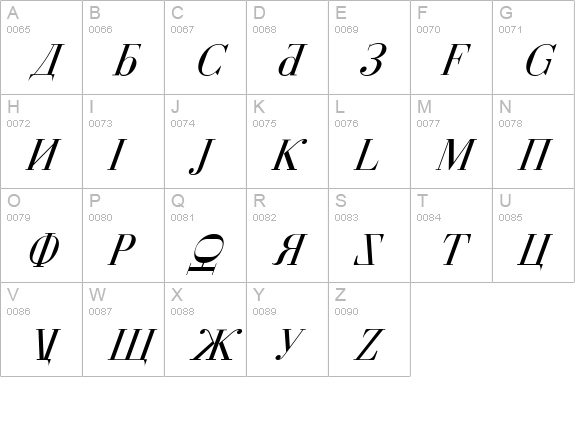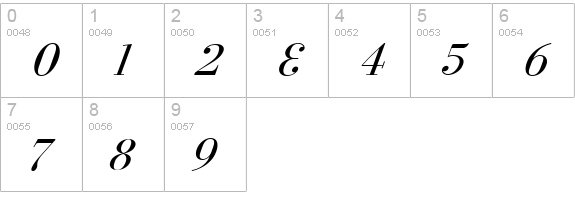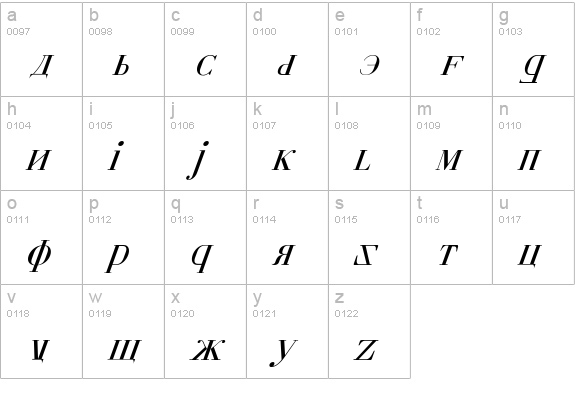
Cyberia Italic is a distinctive, italic variant in the Cyberia typeface family \xE2\x80\x94 well suited to design and typography projects.
Cyberia Italic font is a modern and sleek typeface that exudes sophistication and creativity. Its sleek, italic design gives a dynamic and futuristic touch to any project, making it perfect for digital designs, branding, and advertising materials. The unique curves and stylish angles of Cyberia Italic make it stand out from the crowd, adding a touch of elegance to any text. What's even better is that Cyberia Italic font is available for free download at FontsMarket.com. This means that you can easily access this stunning font to elevate your design projects without any cost. Whether you're a professional designer or someone looking to enhance their creative projects, Cyberia Italic font is a versatile and eye-catching option that will surely make a statement. Download it today and let your creativity flow with this amazing font.